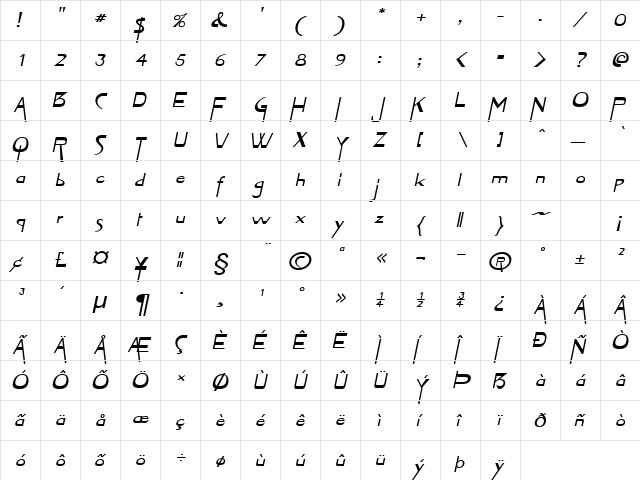
Tablet-Extended Italic Font Preview
Tablet-Extended Italic
Tablet-Extended Italic Font Details
Design Context for Tablet-Extended Typeface
Tablet-Extended offers clean, dependable letterforms without strong stylistic allegiance, making it a practical choice for designers who need flexibility. The slanted form adds forward momentum and visual energy.